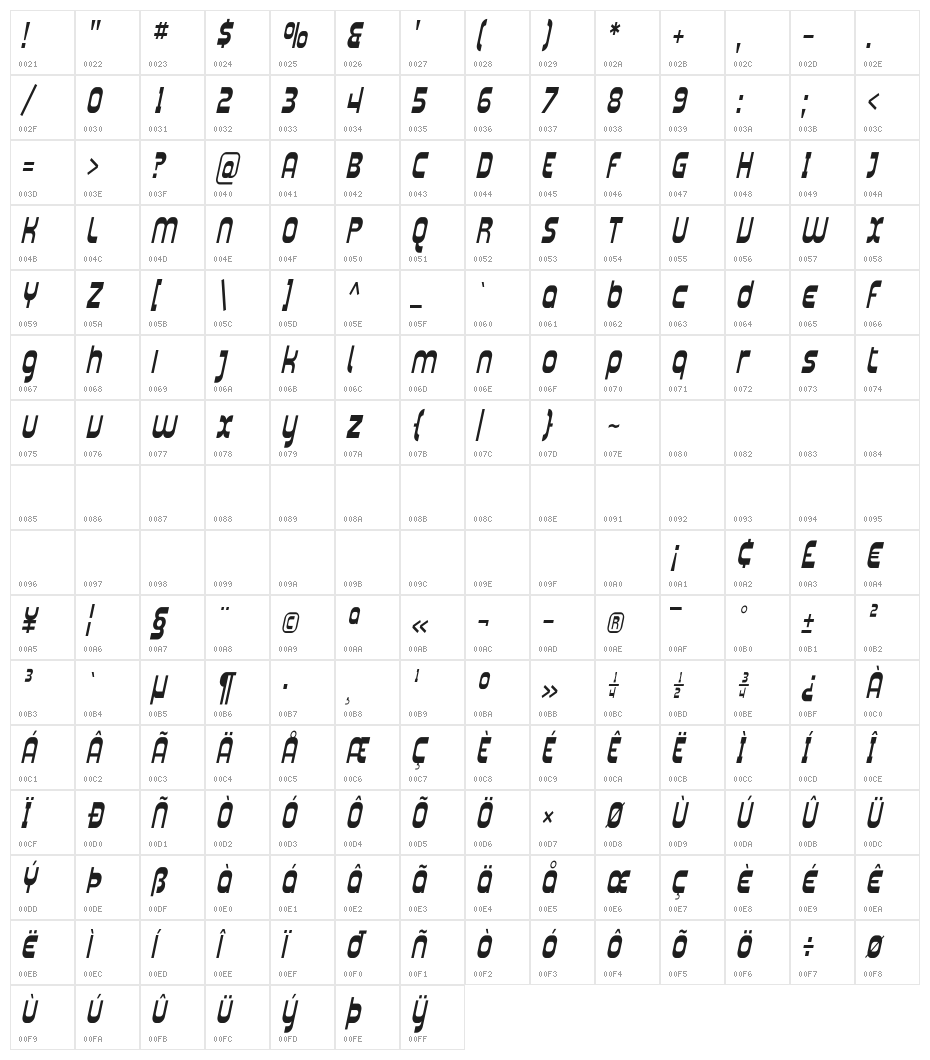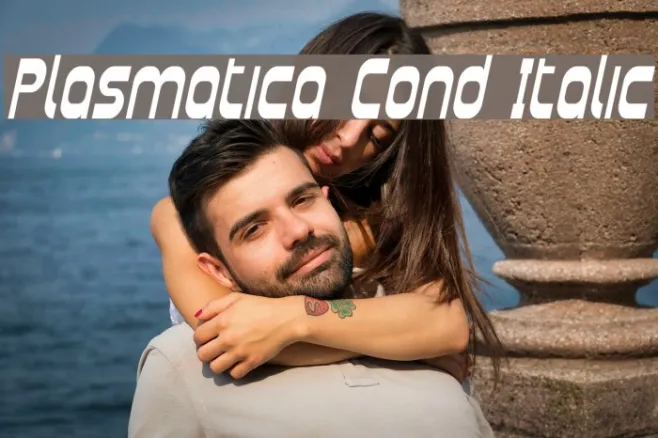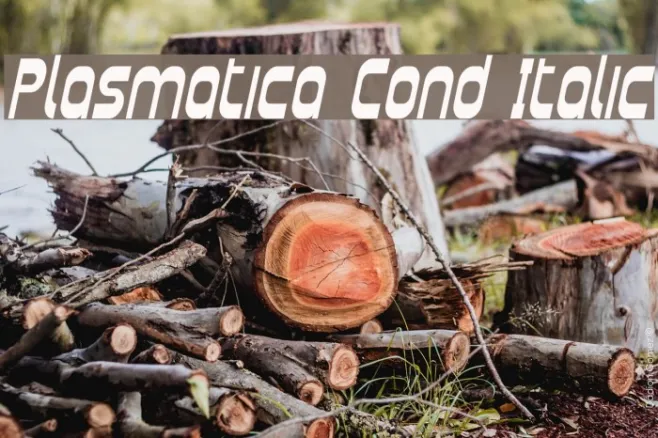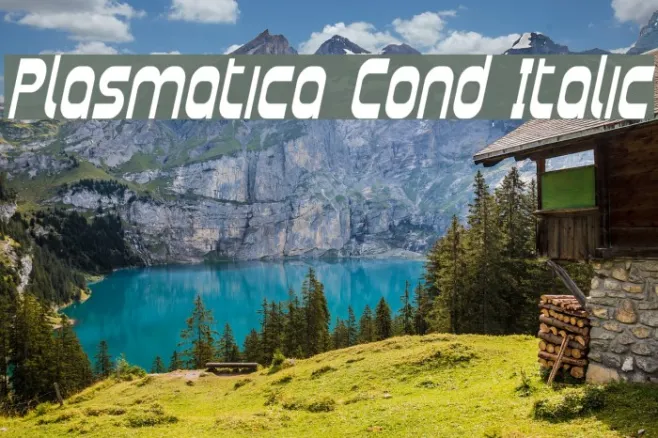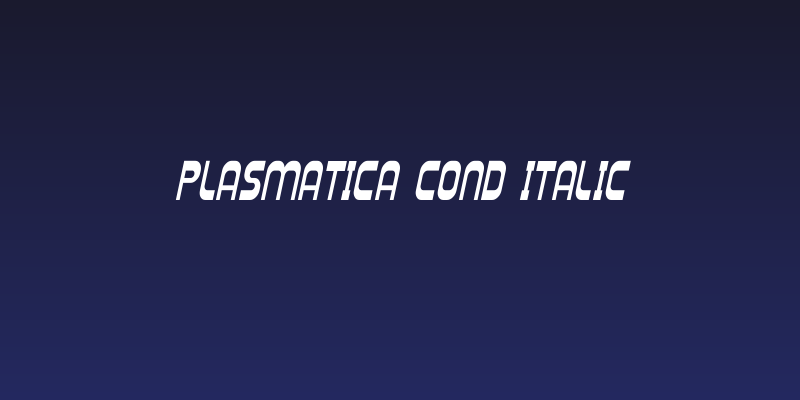
Plasmatica Cond Italic Font
Plasmatica Cond Italic Description
This font features a futuristic and dynamic design with a distinct italic slant, giving it a sense of motion and speed. The characters are bold and condensed, with a geometric structure that emphasizes sharp angles and clean lines. The uppercase and lowercase letters maintain a consistent style, while the numerals and special characters integrate seamlessly into the overall design. The font's modern aesthetic is ideal for projects that require a sleek and contemporary look.
| Proposed Projects | Ideal for technology branding, sports team logos, sci-fi movie posters, and modern advertising campaigns. |